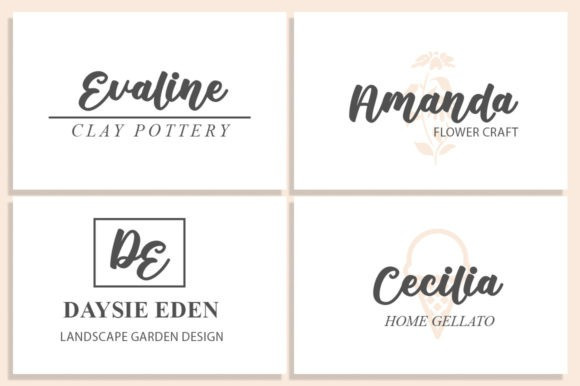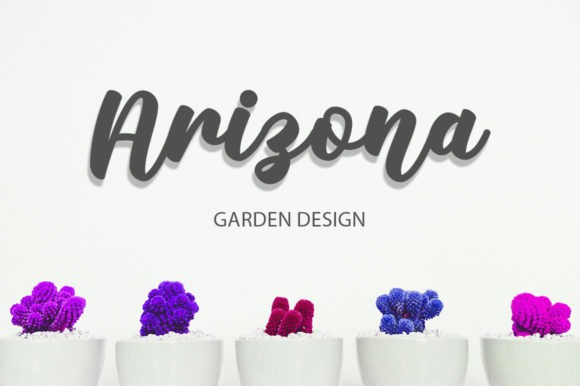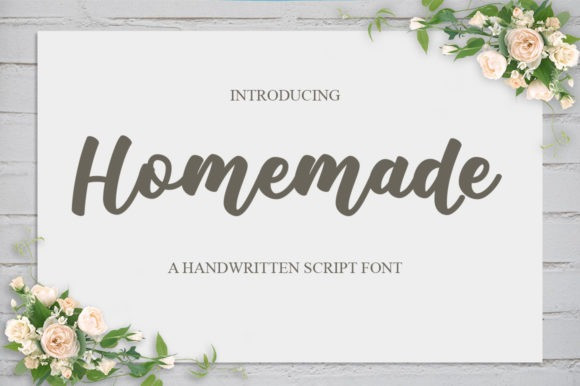
Homemade Typeface
Homemade Typeface is a magical handwritten font. It looks ravishing on invitations, thank you cards, quotes, greeting cards, logos, business cards and every other design which needs a customized touch.